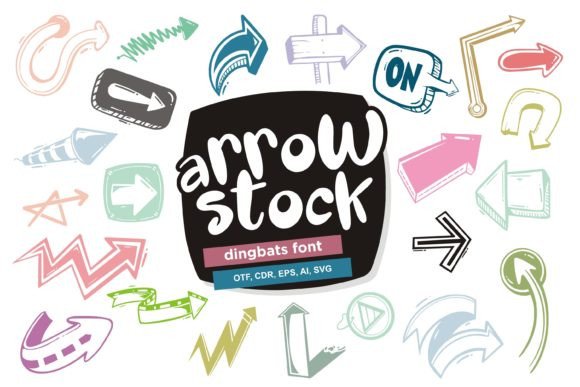
Introducing Arrow Stock Font, a captivating and versatile dingbat font designed specifically for website design. Created by the talented onoborgol, this playful font is perfect for adding a touch of personality and creativity to your projects.
With Arrow Stock Font, you can take your designs to new heights by incorporating these unique hand-drawn dingbats. Whether you're looking to decorate your designs or spruce up your plans, this font has got you covered. Its extensive collection of arrows will add a dynamic and eye-catching element to any project.
What sets Arrow Stock Font apart is its ability to effortlessly enhance your creative ideas. These stylish and expressive dingbats are here to make a statement and elevate your designs to a whole new level. From website headers to social media graphics, this font will ensure your visuals leave a lasting impression.
Unleash your imagination and let Arrow Stock Font be your creative companion. With its wide range of arrows, you can easily guide your audience's attention and create a seamless visual experience. Add a touch of whimsy to your designs or use these dingbats to create a sense of direction and flow.
One of the greatest advantages of Arrow Stock Font is its versatility. Whether you're a graphic designer, web developer, or simply someone looking to add a unique touch to their creations, this font is a must-have. Its intuitive design allows for easy integration into any project, making it suitable for both beginners and seasoned professionals.
When it comes to marketing and selling your products, visuals play a crucial role. With Arrow Stock Font, you can captivate your target audience with stunning visuals that speak volumes. Let these expressive dingbats do the talking and watch as your designs come to life.
In conclusion, Arrow Stock Font is the ultimate font for website design. Its playful and captivating nature, combined with its vast collection of hand-drawn dingbats, will undoubtedly make your designs stand out from the crowd. Embrace creativity, let your imagination soar, and unlock endless possibilities with Arrow Stock Font.